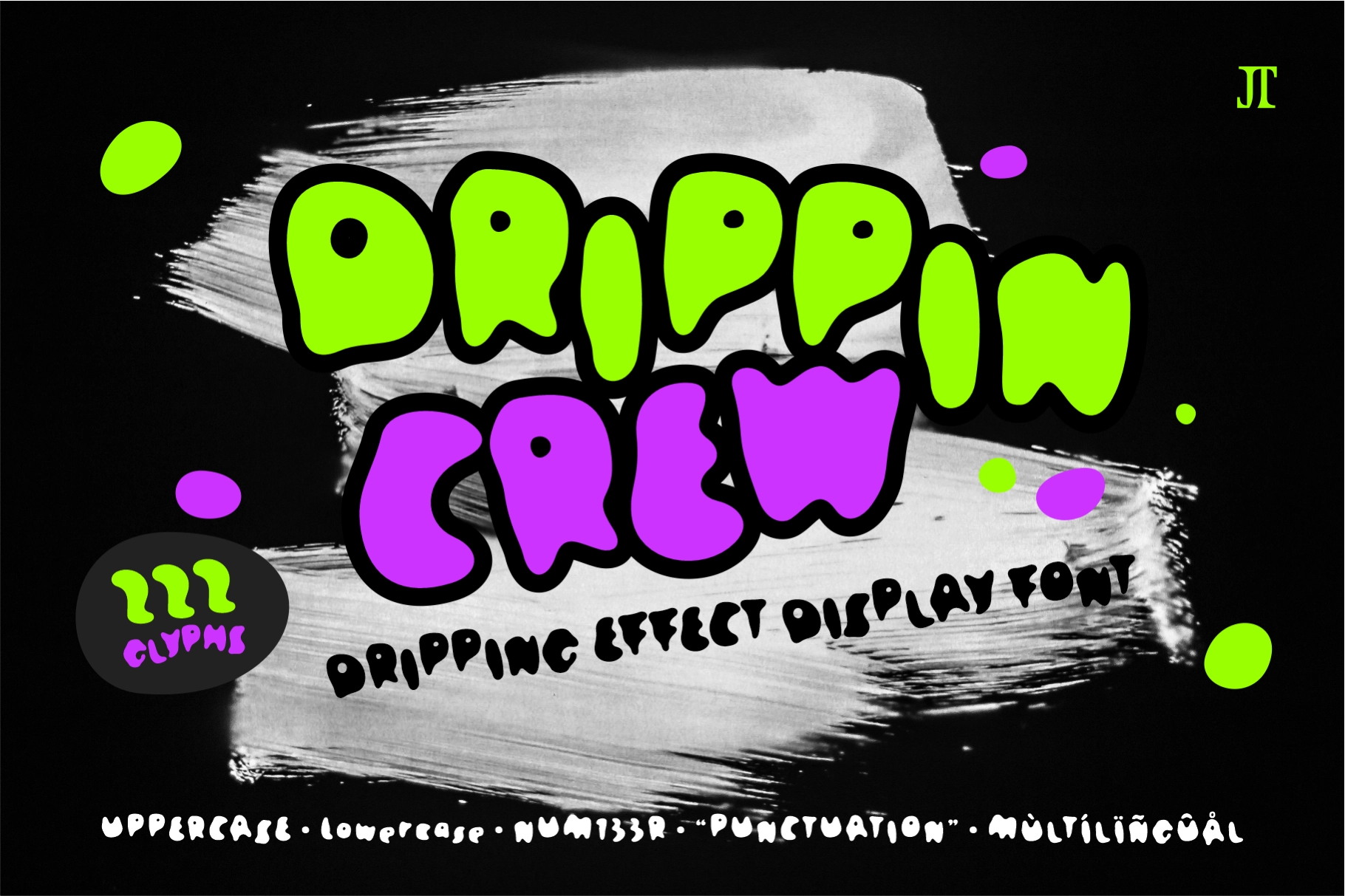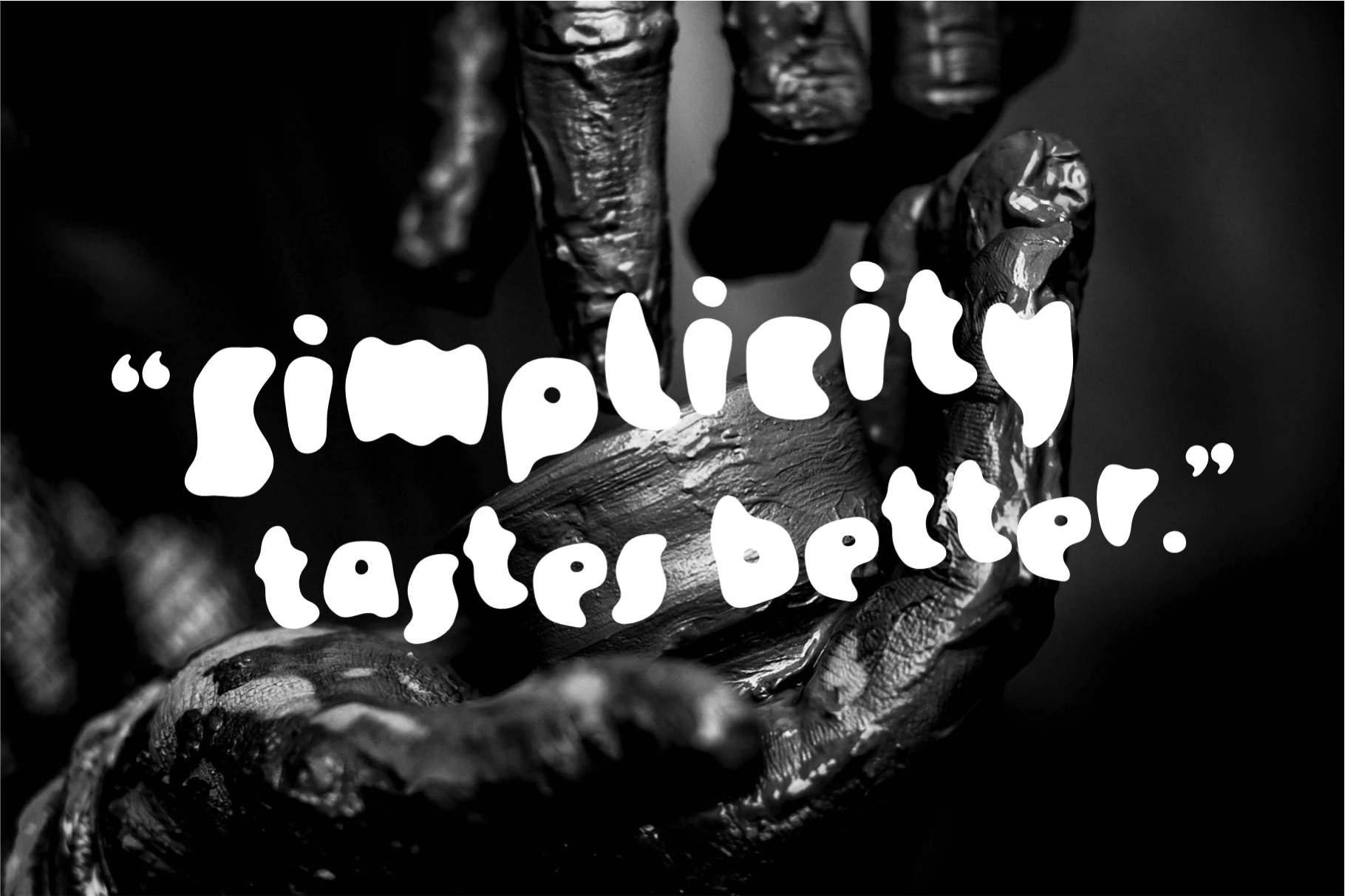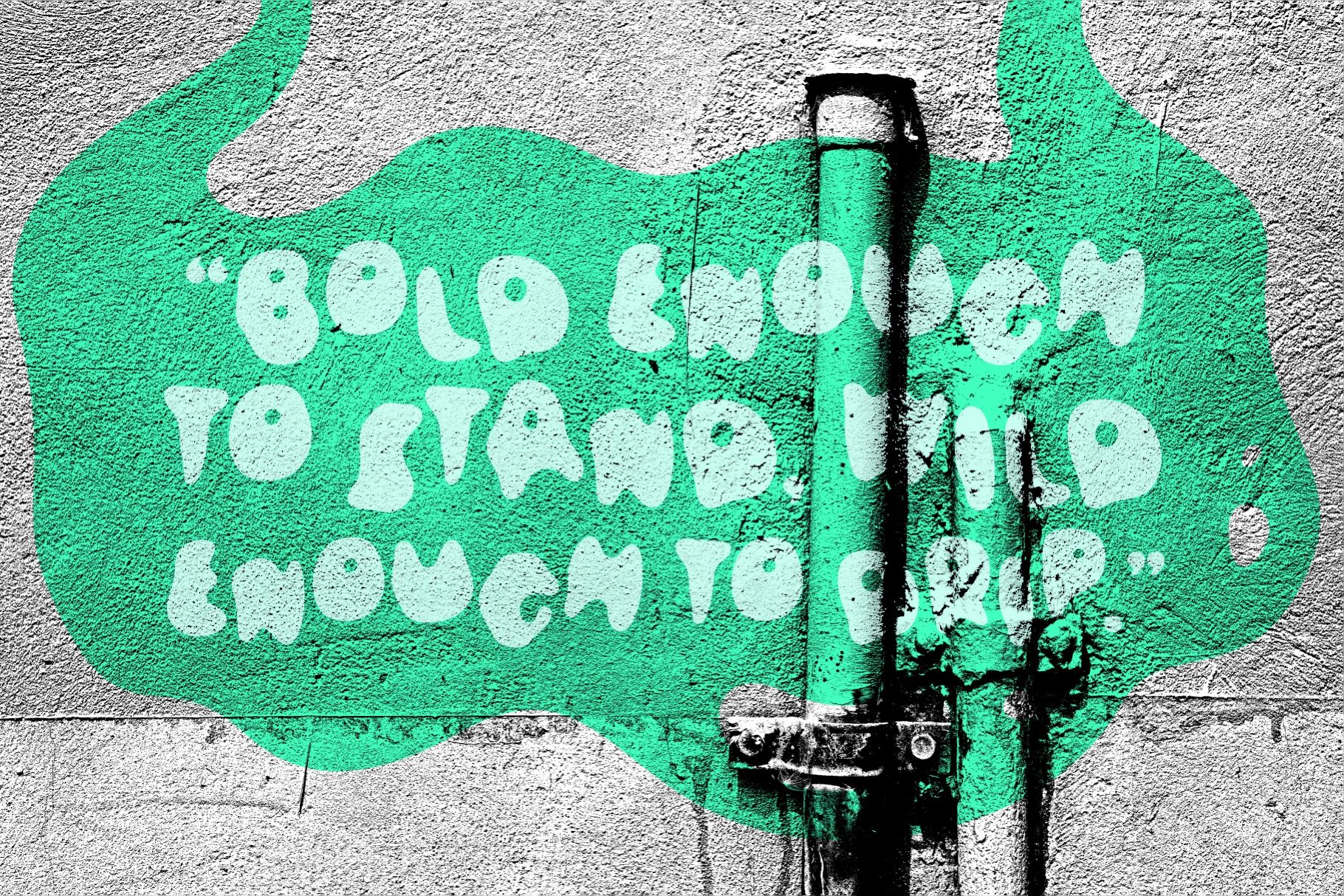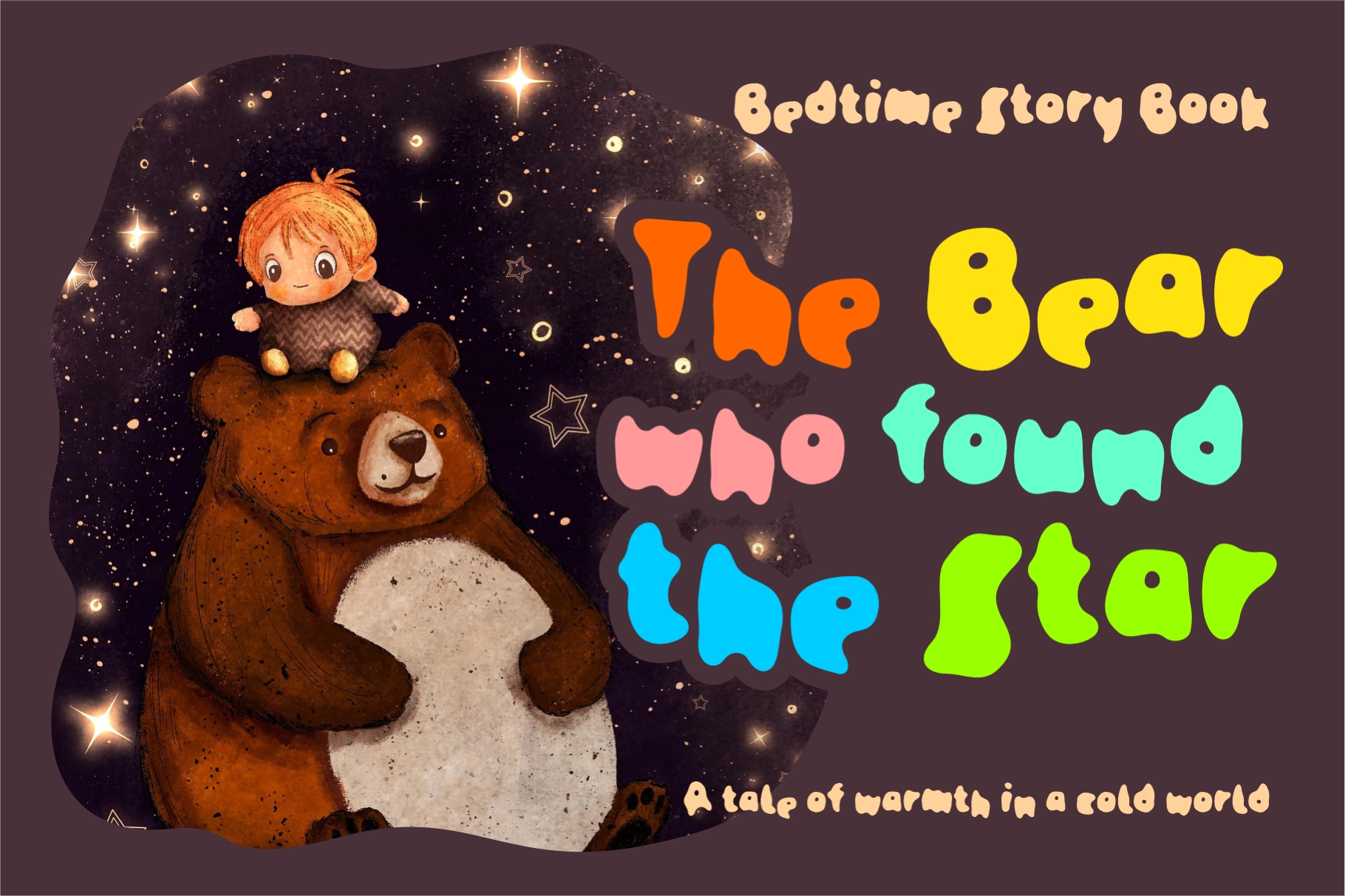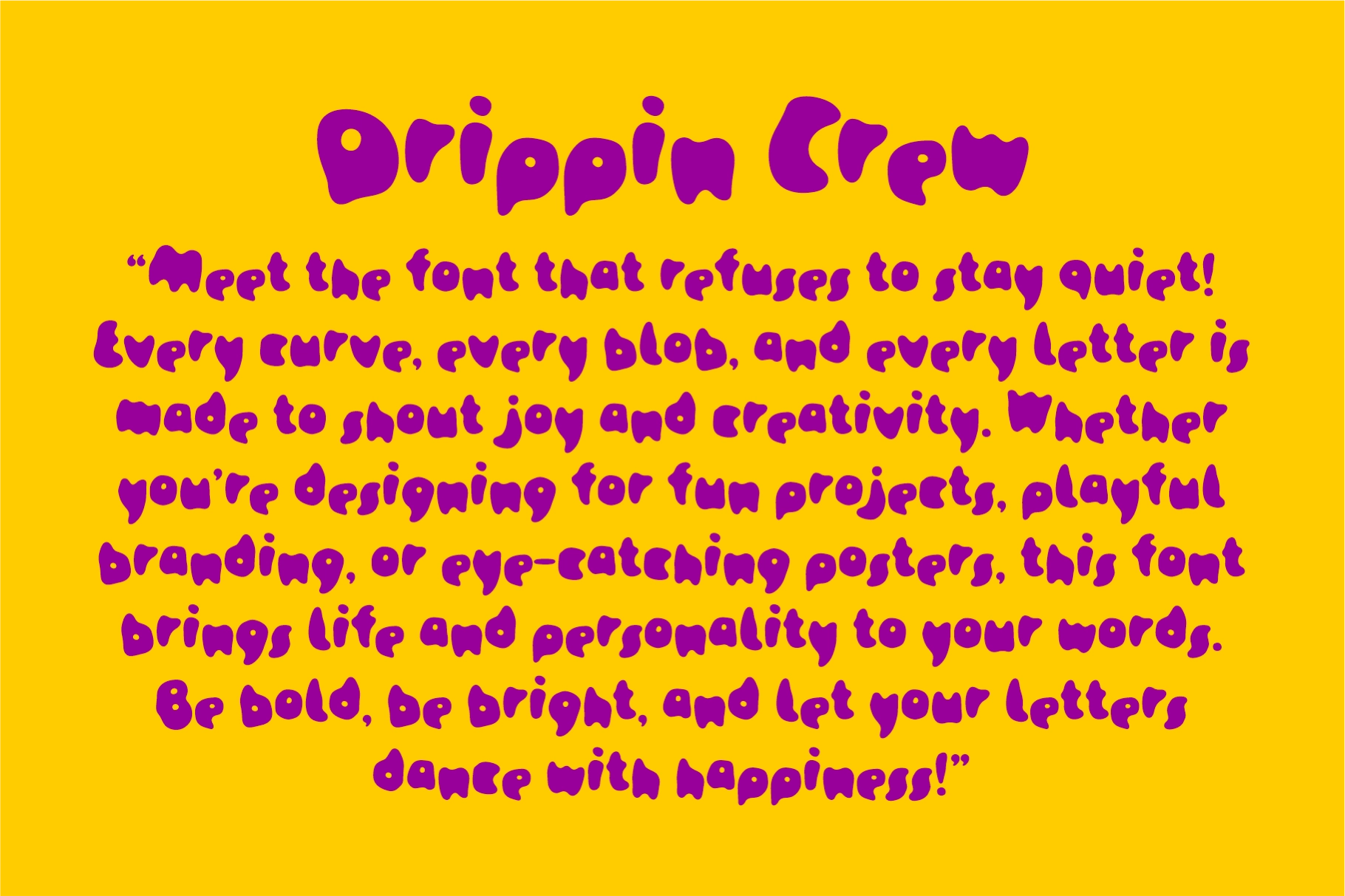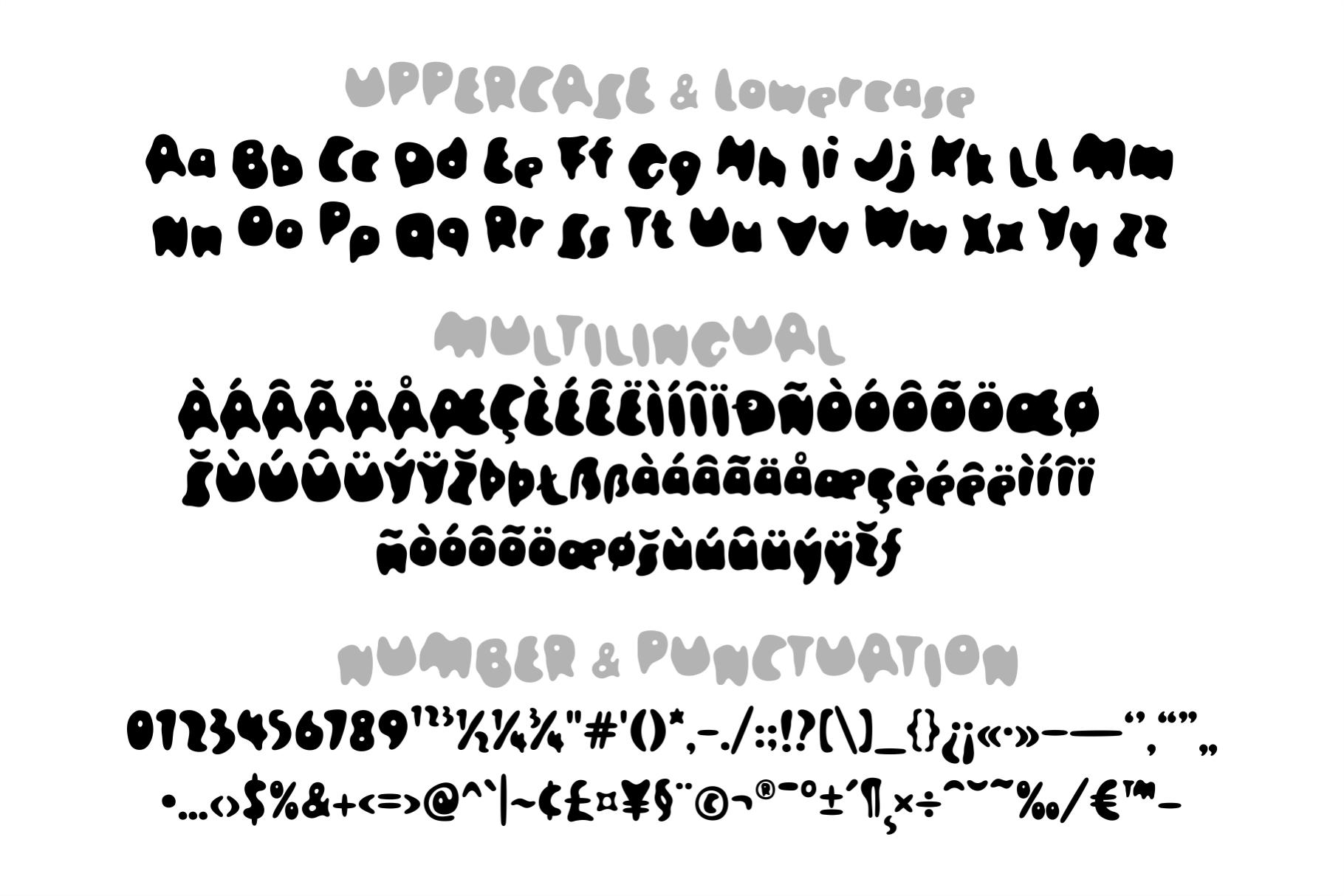
Drippin Crew - Dripping Display Font
Drippin Crew
A display font with chunky, blobby letters and a loud graffiti attitude. The rounded forms, uneven edges, and dripping shapes give it a playful street-art character that works best when the design needs noise, color, and a little chaos.
Drippin Crew is made for poster headlines, streetwear graphics, album covers, music flyers, skateboard decks, kids’ book covers, YouTube thumbnails, stickers, merch prints, event branding, comic titles, packaging, and social media graphics. It has the right kind of unruly energy for layouts that need to shout without taking themselves too seriously.